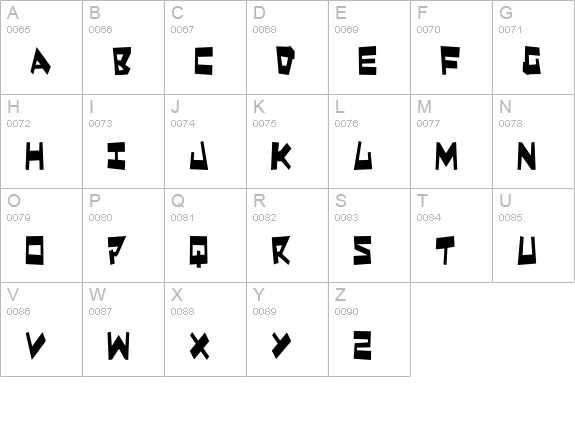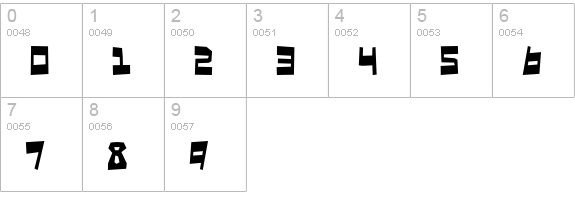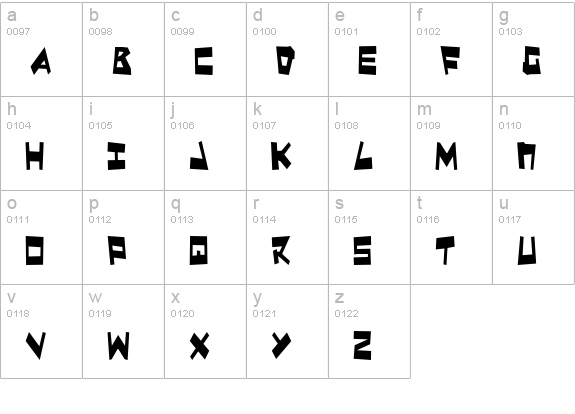
Quake & Shake Condensed is a distinctive, condensed-width variant in the Quake typeface family \xE2\x80\x94 well suited to design and typography projects.
Quake & Shake Condensed font is a stunningly bold and dynamic typeface that effortlessly captures attention with its powerful presence. Its condensed form adds a touch of elegance and modernity to any design project, making it perfect for headlines, logos, posters, and more. With its strong, thick strokes and sharp edges, Quake & Shake Condensed commands attention and leaves a lasting impression. Whether you're designing for a high-energy sports event, a cutting-edge technology brand, or a trendy fashion campaign, this font will bring your creations to life with its intense energy and visual impact. But what truly sets Quake & Shake Condensed apart is its versatility. It adapts effortlessly to various design styles and themes, making it a reliable choice for a wide range of projects. Its sleek and clean lines, combined with its commanding presence, make it a favorite among designers who want to convey a sense of power, strength, and confidence. And the best part? Quake & Shake Condensed font is available for free! That's right, you can download this incredible font without any cost at FontsMarket.com. We believe that creativity should never be limited by budget constraints, and we're thrilled to offer this extraordinary typeface to designers and enthusiasts worldwide. So, if you're looking to make a bold statement and leave a lasting impression, Quake & Shake Condensed font is the perfect choice. Download it for free today at FontsMarket.com and unleash its power in your design projects.